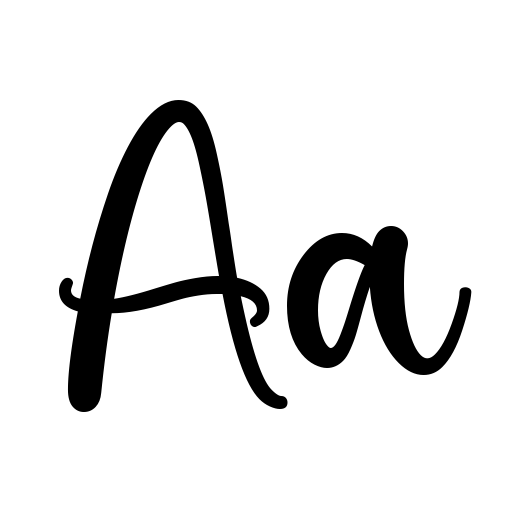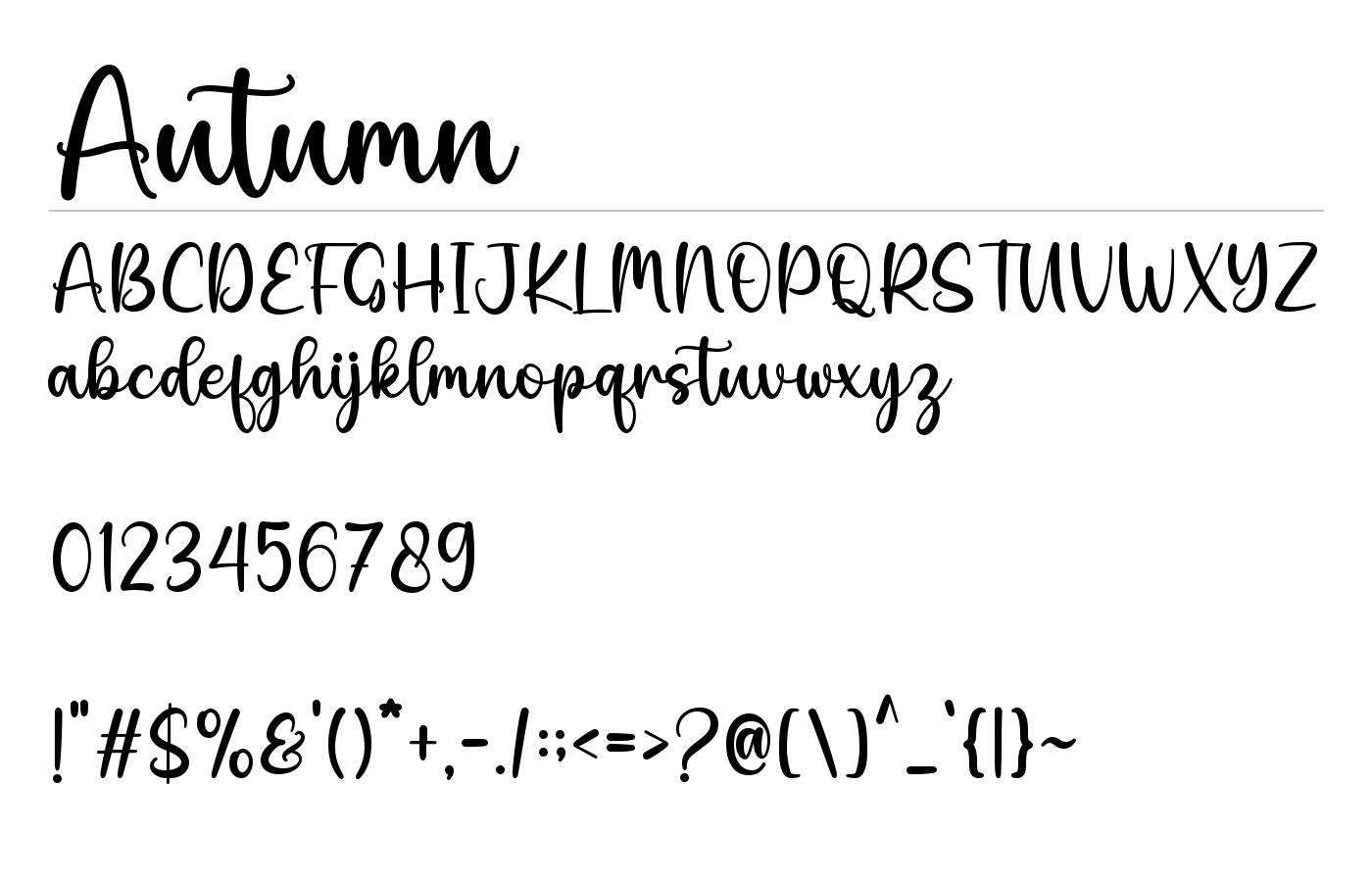
Autumn Font is a charming handwritten script with a warm and friendly personality, featuring smooth, flowing strokes and moderate contrast that give it a casual yet refined look. Its upright letterforms with playful curls and loops create an inviting style perfect for creative branding, greeting cards, and lifestyle projects where a personal touch is desired. This font works beautifully for headlines, logos, and packaging that aim to evoke warmth and approachability.
Autumn Font
About Autumn Font
| Font family | Autumn Font |
| Designer | Risma Ramawi |